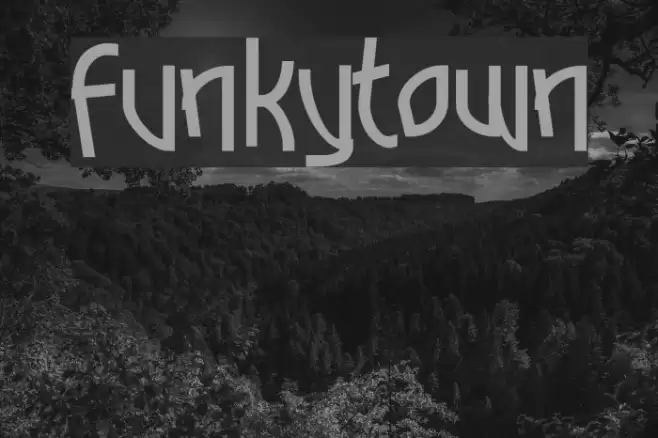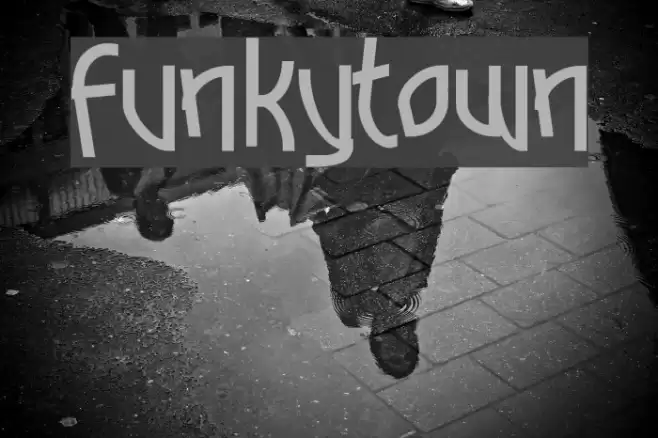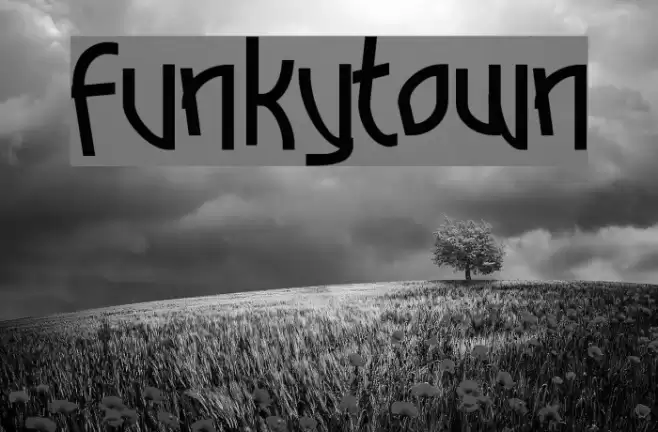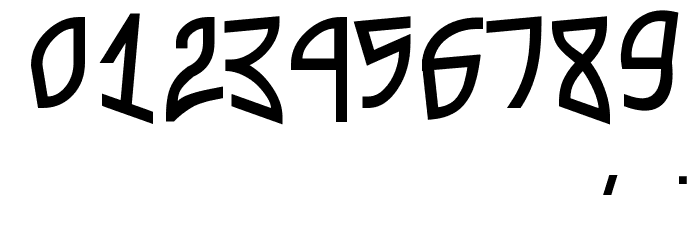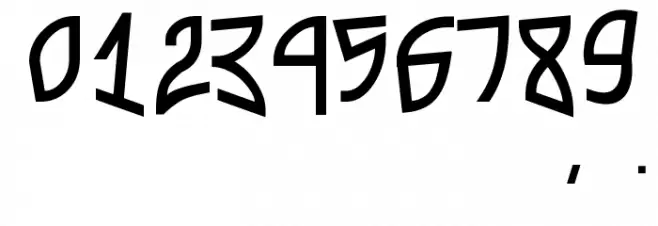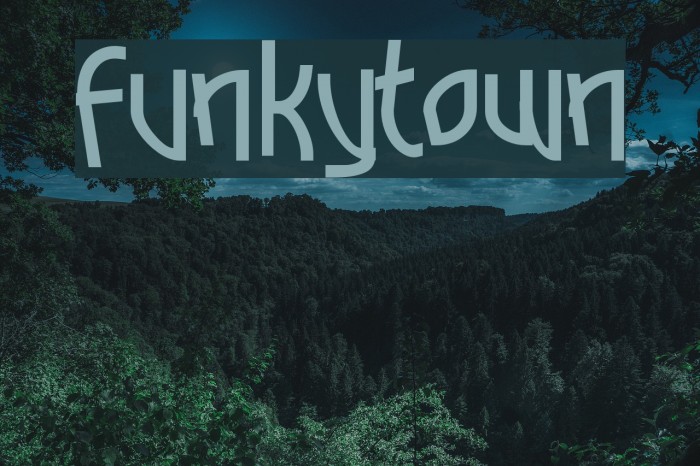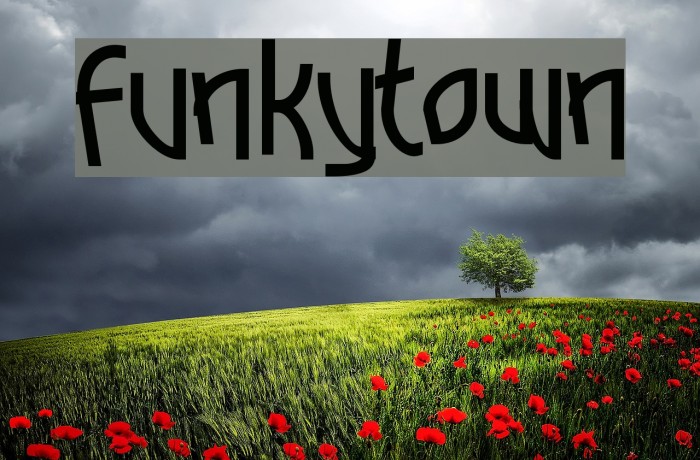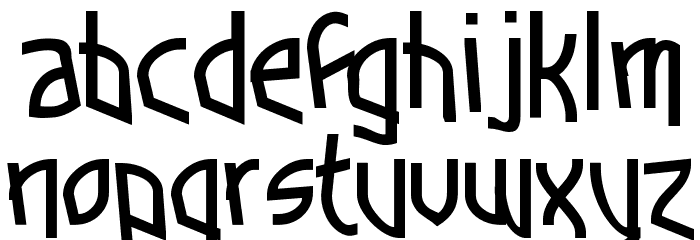
Funkytown Font
Funkytown Description
This font features a playful and dynamic style with a unique twist on each character. The letters are bold and slightly irregular, giving them a hand-drawn, whimsical appearance. The strokes are thick and consistent, providing a strong visual impact. The overall design is modern and artistic, making it suitable for creative projects that require a fun and engaging typeface. The characters are slightly tilted, adding to the quirky and lively feel of the font. This typeface is perfect for capturing attention and conveying a sense of energy and movement.
A playful and dynamic font with bold, irregular strokes and a whimsical style from Cartoon fonts.
- Proposed Projects: Ideal for posters, children's books, party invitations, and branding for creative businesses.